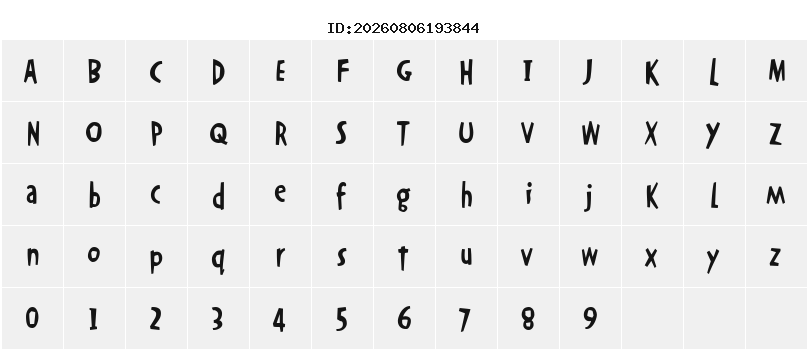
OkrienHmkBold Preview
• Font Name: OkrienHmkBold
• Full Font Name: OkrienHmkBold
About OkrienHmkBold.ttf
OkrienHmkBold.ttf is a modern, elegant sans-serif font designed for ultimate readability and visual harmony. Perfect for branding, headlines, web design, and print materials.